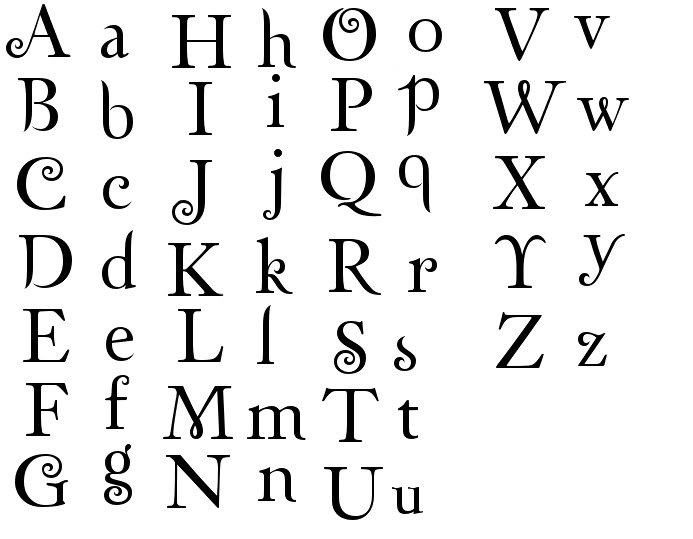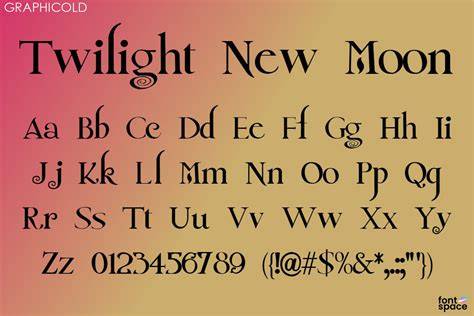
Welcome To The World Of Twilight Fonts!
It’s 2023, and the world of typography has changed a lot over the years. As technology advances, new font styles and designs have been created, and one of those new styles is twilight fonts. Twilight fonts are the perfect way to bring a unique and beautiful look to any project, whether it’s a website, an advertisement, or a book cover. So, what exactly are twilight fonts and why should you use them? Read on to find out more.
What are Twilight Fonts?
Twilight fonts are a type of font that feature a combination of light and dark elements. This creates a unique look that is both delicate and mysterious. Twilight fonts can be used to create a dreamy, romantic look, or even a more serious and modern look. They are also great for adding a sense of drama and mystery to a project. Twilight fonts come in a variety of styles and designs, so you can easily find one that fits the look and feel of your project.
Why Should You Use Twilight Fonts?
Twilight fonts are a great way to create a unique and beautiful look for your project. The combination of light and dark elements gives the font a unique look that stands out from other fonts. Twilight fonts are also great for adding a sense of mystery and drama to a project. They can be used to create a dreamy and romantic look, or a more serious and modern look. You can also use them to add a touch of elegance to any project.
Twilight fonts are a great way to add a unique and beautiful look to any project. They are perfect for creating a dreamy, romantic look, or a more serious and modern look. You can easily find a font that fits the look and feel of your project online. So, why not give twilight fonts a try today? You won’t be disappointed.